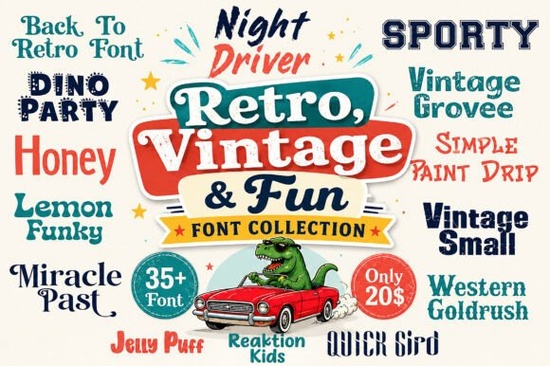
When it comes to adding a unique and nostalgic touch to your designs, the Retro, Vintage & Fun Collection Font is a fantastic choice. This versatile bundle features over 35 unique display fonts, each with its own distinctive character, making it perfect for a wide range of creative projects.
Why Choose the Retro, Vintage & Fun Collection Font?
This collection offers a diverse array of styles, from retro and vintage-inspired lettering to playful kids' fonts, sporty typefaces, western designs, groovy lettering, hand-painted styles, and bold display fonts. Whether you're working on branding, merchandise, social media graphics, packaging, posters, book covers, invitations, or Cricut projects, this bundle provides endless creative possibilities.
What Makes This Font Collection Stand Out?
One of the key advantages of the Retro, Vintage & Fun Collection Font is its versatility. Each font in the bundle has been carefully designed to bring personality, nostalgia, and creativity to your projects. Here are some reasons why this collection stands out:
- Variety of Styles: The collection includes a wide range of styles, allowing you to mix and match fonts to create eye-catching and unique designs.
- High-Quality Design: Each font is meticulously crafted to ensure high quality and readability, making them suitable for both digital and print projects.
- Endless Creative Possibilities: With over 35 fonts, you can find the perfect style for any project, whether it's a vintage poster, a playful invitation, or a bold logo.
How Can You Use These Fonts in Your Projects?
The Retro, Vintage & Fun Collection Font is incredibly versatile and can be used in a variety of creative projects. Here are some ideas:
- Branding and Logos: Create unique and memorable logos for your business or brand. The retro and vintage styles can add a touch of nostalgia and personality.
- Merchandise: Design t-shirts, mugs, tote bags, and other merchandise with these fonts to give your products a distinct and appealing look.
- Social Media Graphics: Enhance your social media posts with eye-catching graphics that stand out. The playful and bold fonts can help grab attention and engage your audience.
- Packaging and Labels: Add a personal and creative touch to your product packaging and labels. The hand-painted and retro styles can make your products more appealing and memorable.
- Posters and Invitations: Create stunning posters and invitations for events, parties, and special occasions. The variety of styles in the collection allows you to choose the perfect font for any theme.
Which Fonts Are Included in the Collection?
The Retro, Vintage & Fun Collection Font includes a wide variety of styles, each with its own unique character. Some of the standout fonts in the collection include:
- Simple Lover Font: A clean and elegant font that adds a touch of sophistication to your designs. Simple Lover Font
- Orange Crayon Font: A playful and fun font that is perfect for children's designs and casual projects. Orange Crayon Font
- Aristoreva Font: A vintage-inspired font that brings a classic and timeless feel to your designs. Aristoreva Font
- Pelique Font: A bold and modern font that adds a strong and impactful presence to your designs. Pelique Font
Tips for Using the Retro, Vintage & Fun Collection Font
To get the most out of this font collection, here are some practical tips:
- Experiment with Combinations: Try mixing and matching different fonts from the collection to create unique and dynamic designs. For example, pair a retro font with a bold display font for a striking effect.
- Consider the Context: Choose the right font for the context of your project. For instance, a playful font might be perfect for a children's birthday invitation, while a vintage font could be ideal for a classic wedding invitation.
- Test Readability: Ensure that the fonts you choose are readable, especially for longer text. Test the fonts at different sizes and on various backgrounds to make sure they are clear and easy to read.
- Use Color Wisely: Experiment with different colors to enhance the visual impact of your designs. Consider using complementary colors to make your text stand out.